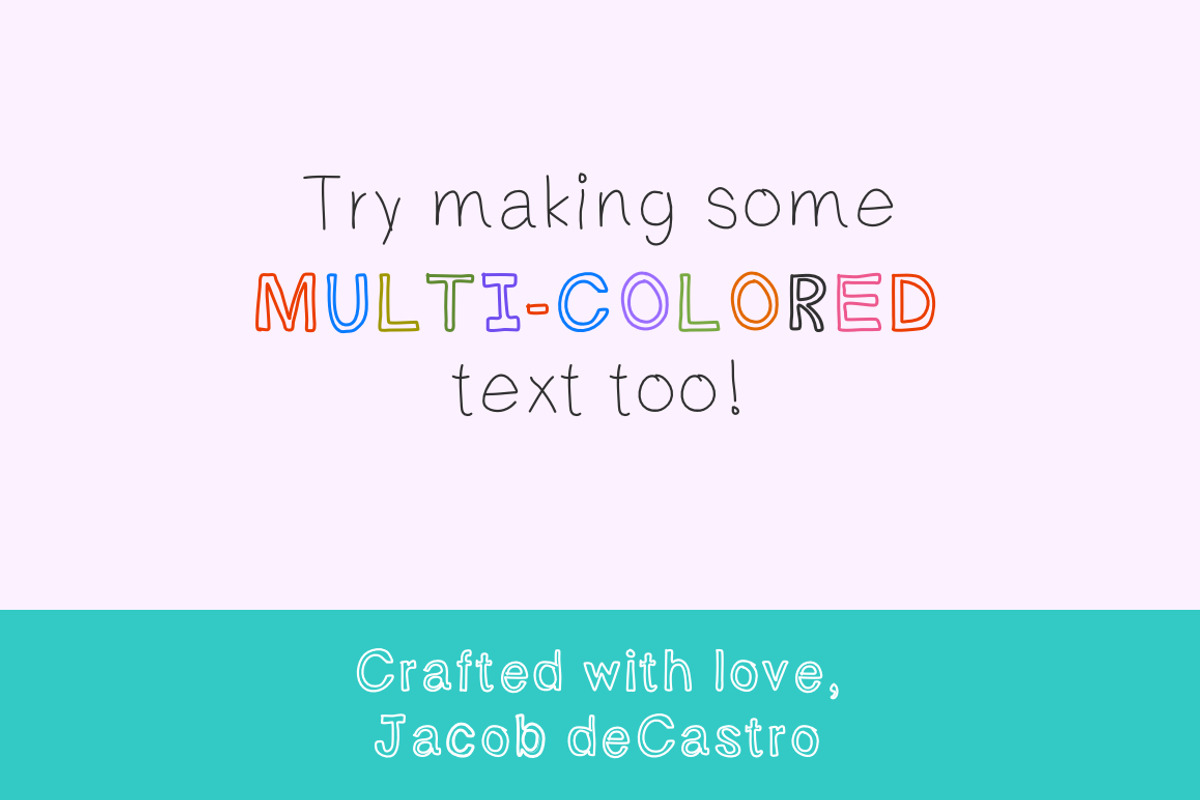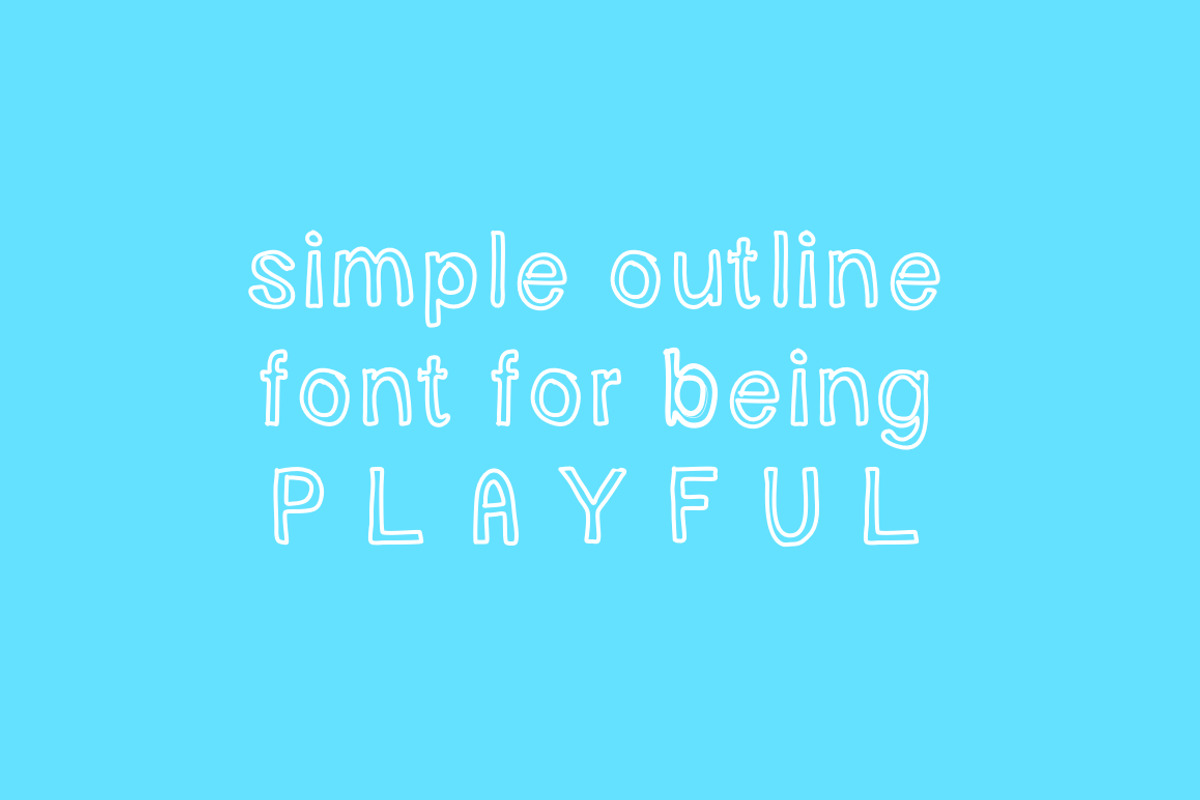
Upside Handwritten Outline Font
Upside Handwritten Outline Font by Jacob deCastro is a font selected for branding, posters, packaging, typography.
Why Upside Handwritten Outline Font is worth a look
Upside Handwritten Outline Font by Jacob deCastro fits naturally into Branding, posters, packaging, typography.